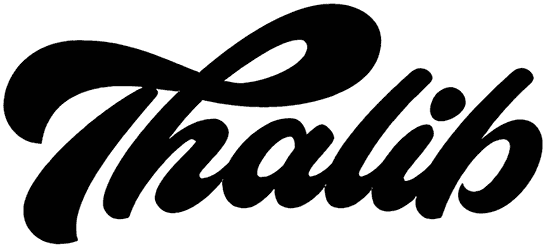
Thalib Font
Captivating your audience with classic-themed entities is a valuable rule of thumb. Now, to establish it, why not use this vintage old-school font to behold the nostalgic moment of your followers going wowed by your outstanding magazine covers, movie titles, posters, and logotype?
It’s fantastic how many times you can apply its various styles by adding this baseball font to your collection. That’s it! Get the Thalib font to step up your showcase!